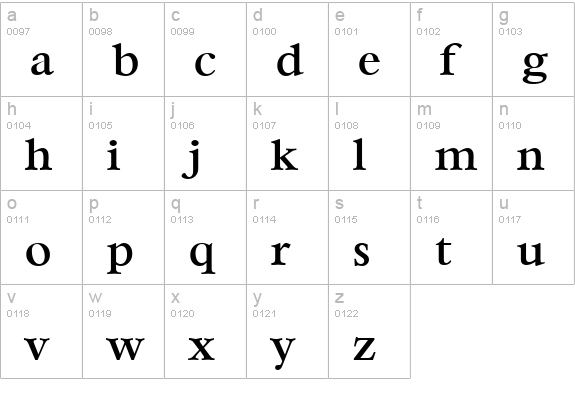
BernsteinSerial-Medium-Regular is a balanced, medium-weight variant in the BernsteinSerial typeface family \xE2\x80\x94 well suited to sub-headlines, navigation, and balanced editorial work.
Introducing Bernstein Serial Medium Regular font, a timeless and versatile typeface that exudes elegance and professionalism. With its balanced letterforms and classic design, this font is perfect for a wide range of projects, from branding to editorial design. The medium weight of the font strikes the perfect balance between readability and style, making it ideal for both headlines and body text. The Bernstein Serial Medium Regular font is available for free download at FontsMarket.com, where you can easily access and use this beautiful typeface in your projects without any cost. Whether you're designing a website, creating a logo, or working on a print publication, this font is sure to elevate your work with its sophisticated charm and legibility. Don't miss the opportunity to enhance your design projects with the timeless appeal of Bernstein Serial Medium Regular font. Download it for free today at FontsMarket.com and add a touch of refinement to your next creative endeavor.